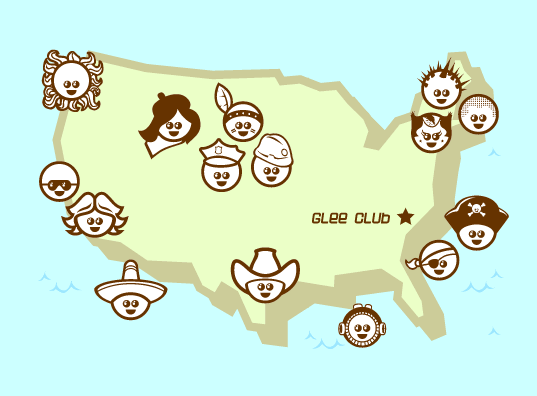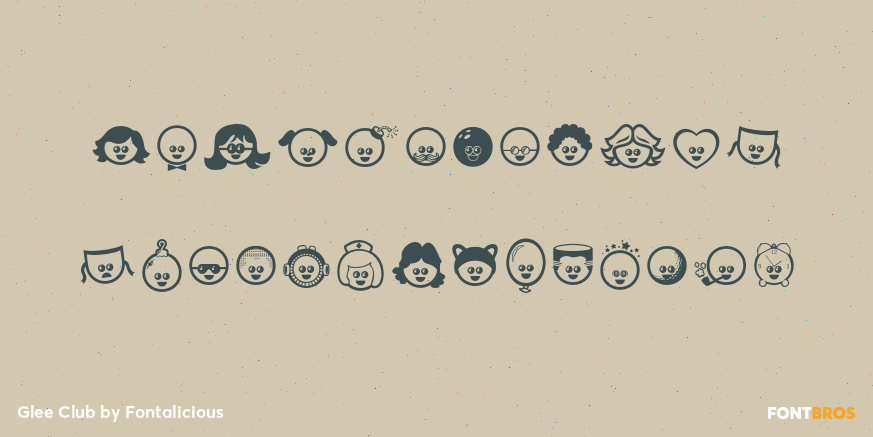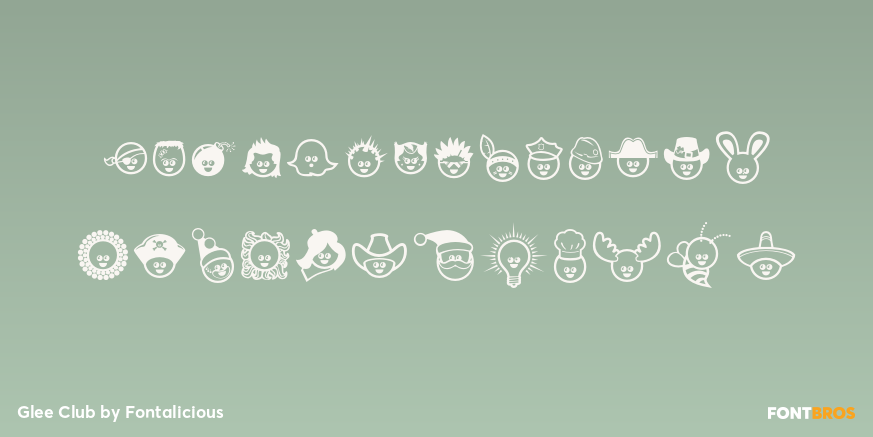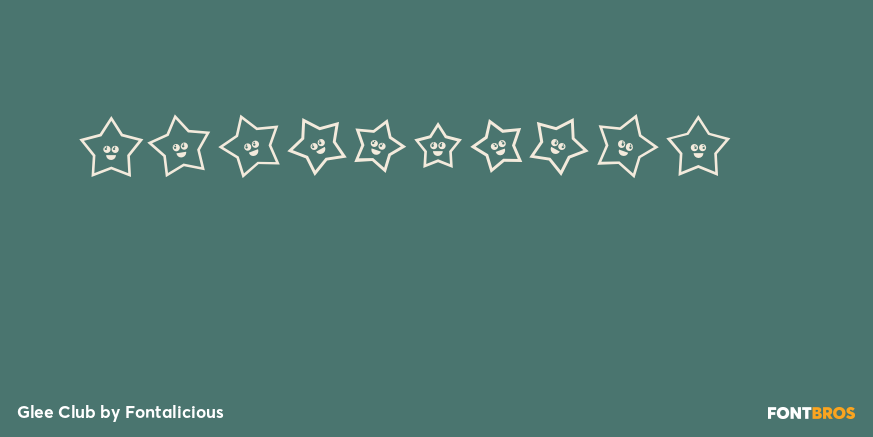
Glee Club
Font Family by Fontalicious
I never leave well enough alone. 'The Kids' was a okay dingbat set, but I want people to see this new font and while they're waiting for it to finish downloading, they get up out of their chair and do a crazy little foot dance because they're so excited that there is finally a font that has punk rockers and mullets!